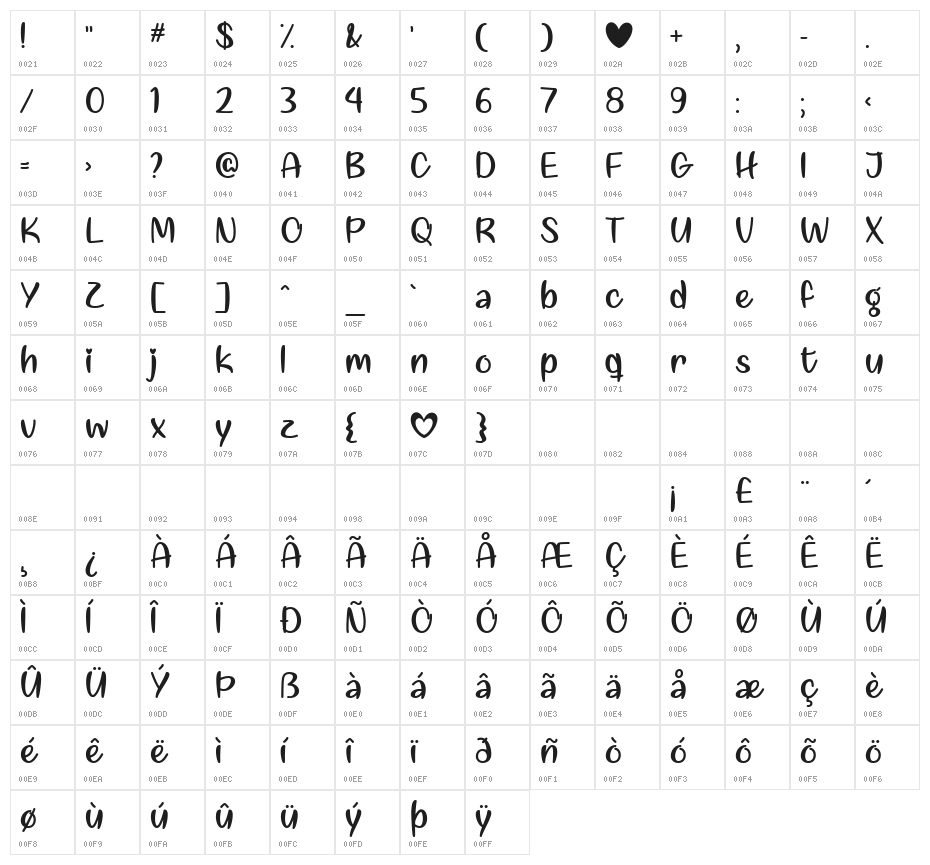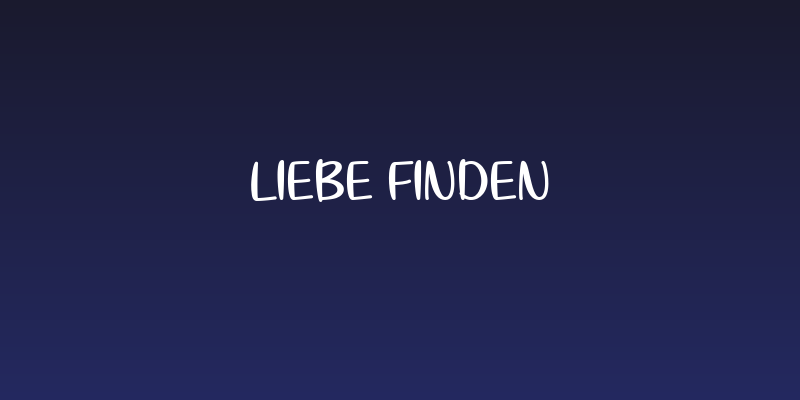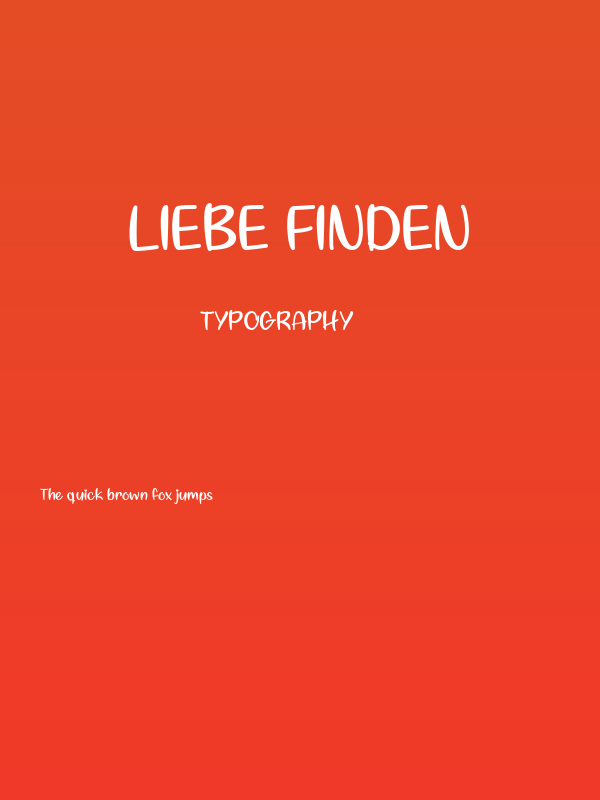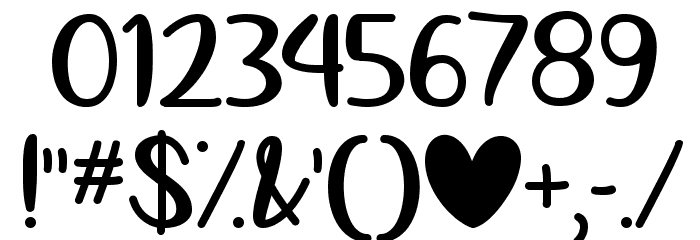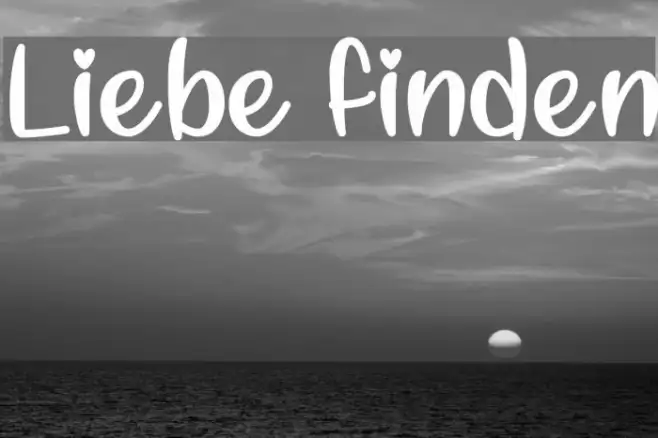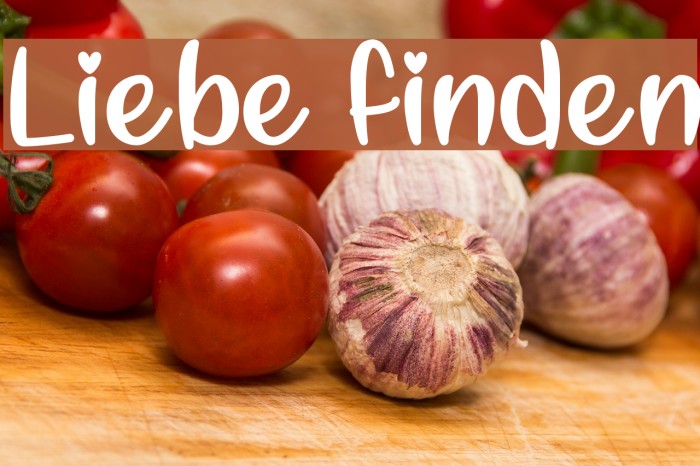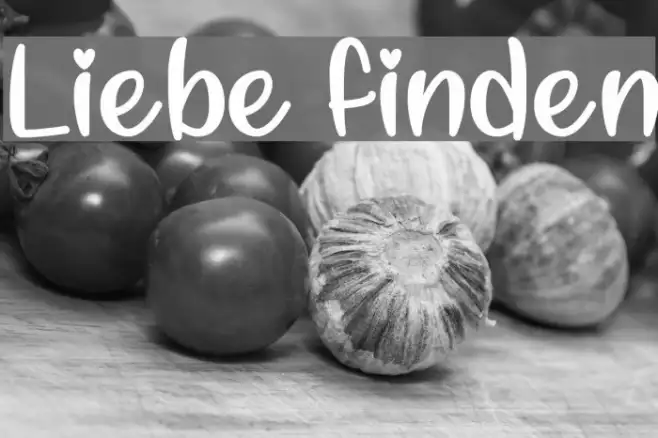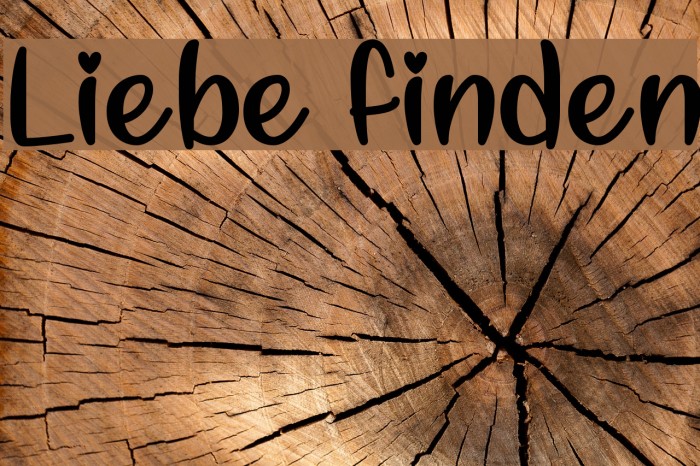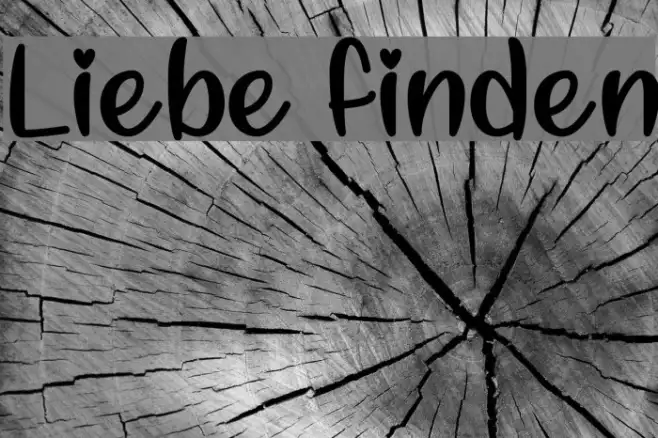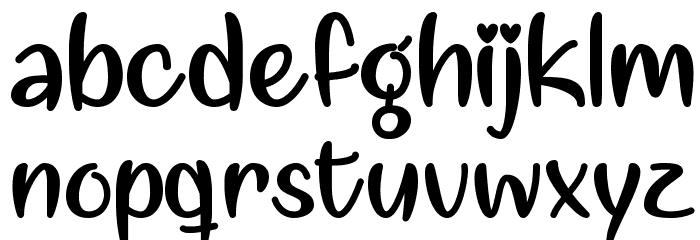
Liebe finden Font
Liebe finden Description
This playful and whimsical font features rounded, bold characters with a handwritten style. The letters are slightly irregular, giving them a friendly and approachable appearance. The uppercase and lowercase letters maintain a consistent style, with smooth curves and a casual flow. Numbers and special characters are designed to match the overall aesthetic, making them suitable for a variety of creative projects. The font's unique personality is enhanced by its bold strokes and slightly condensed form, which adds to its charm and versatility.
LIEBE-FINDEN UPPERCASE
LIEBE-FINDEN LOWERCASE
LIEBE-FINDEN OTHER CHARS
| Proposed Projects | Ideal for greeting cards, children's books, playful branding, and social media graphics. |